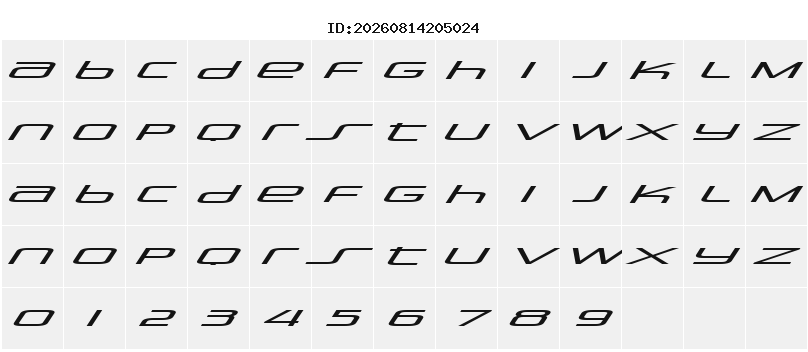
Stasmic Preview
• Font Name: Stasmic
• Font ID: RayLarabie: Stasmic: 2001
• Full Font Name: Stasmic
• Version: Version 1.1; 2001
• Designer: Ray Larabie
About Stasmic.ttf
Stasmic.ttf is a modern, elegant sans-serif font designed for ultimate readability and visual harmony. Perfect for branding, headlines, web design, and print materials.